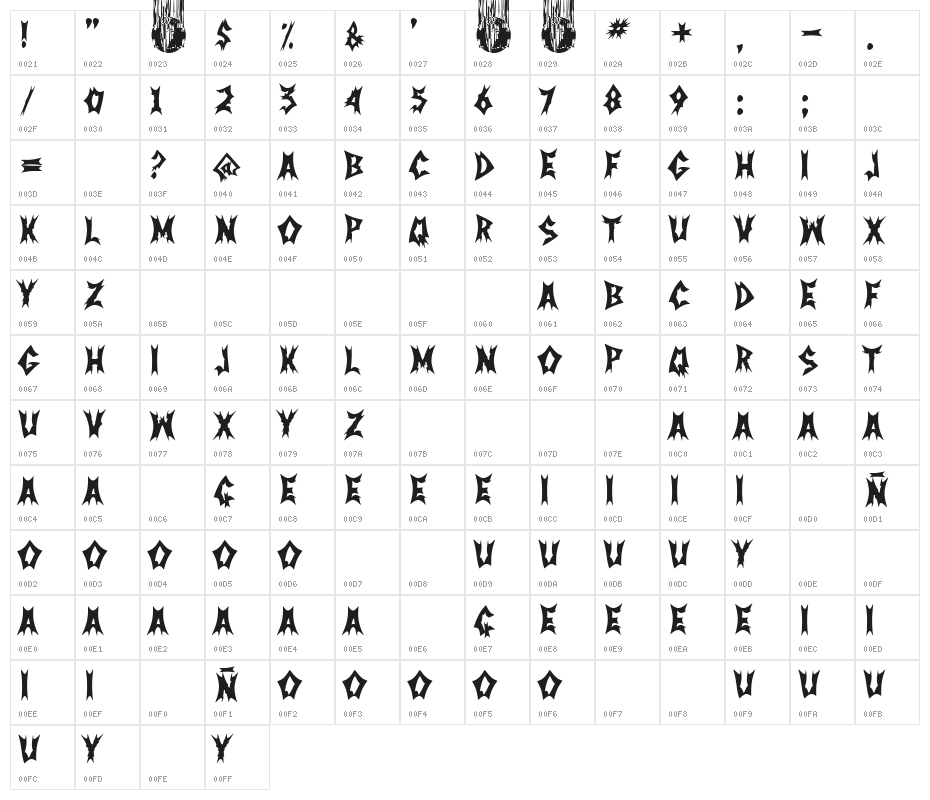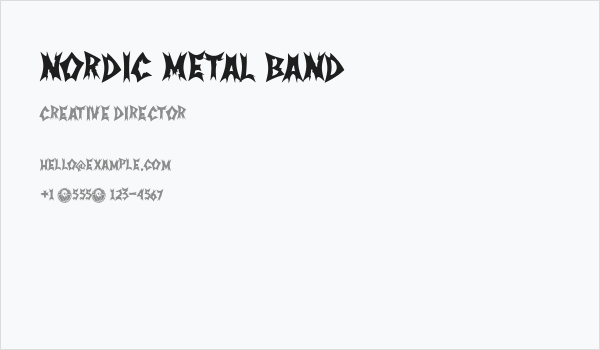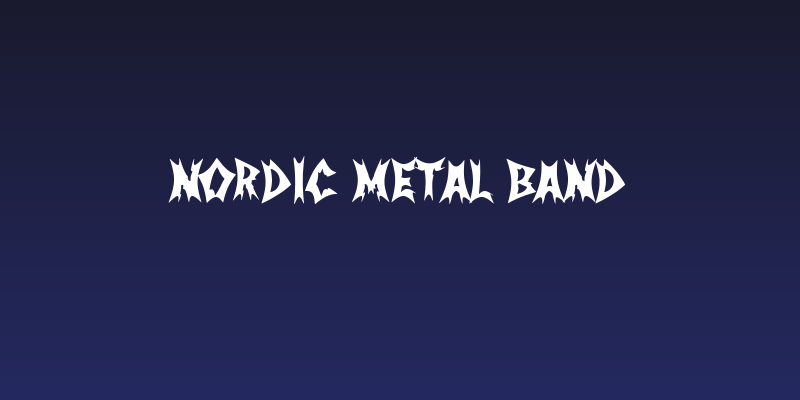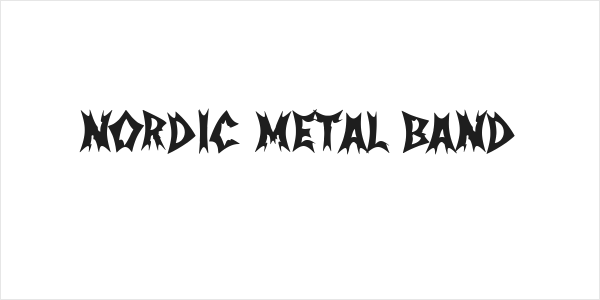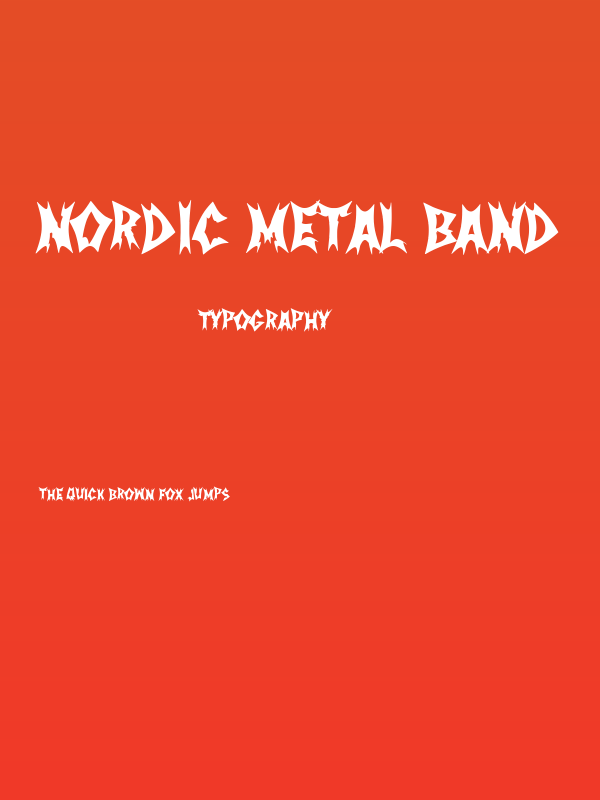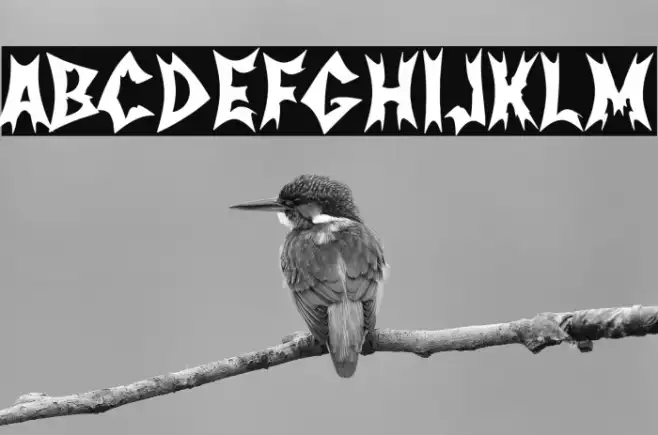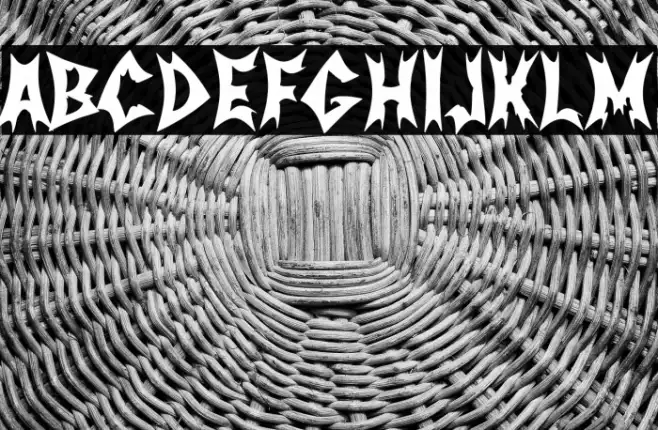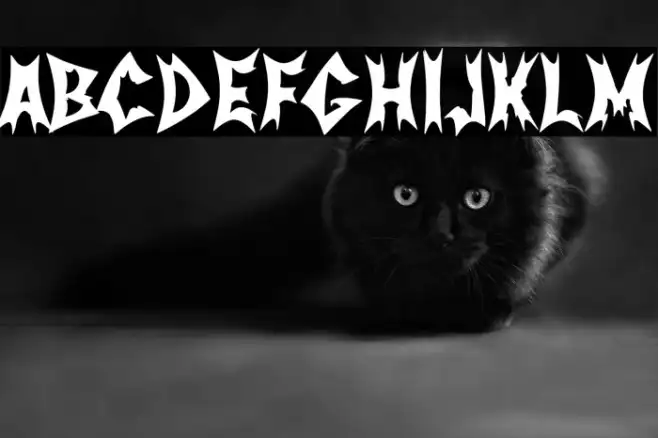
Nordic Metal Band Font
Nordic Metal Band Description
This font embodies a bold and aggressive style, reminiscent of Nordic metal band aesthetics. The characters are jagged and sharp, with an edgy, distressed appearance that suggests a sense of rebellion and intensity. The uppercase and lowercase letters maintain a consistent theme, with angular strokes and pointed edges that create a visually striking effect. Numbers and special characters follow the same design principles, ensuring a cohesive look across all elements. This font is ideal for projects that require a strong, impactful presence.
| Proposed Projects | Album covers, band logos, event posters, merchandise designs. |